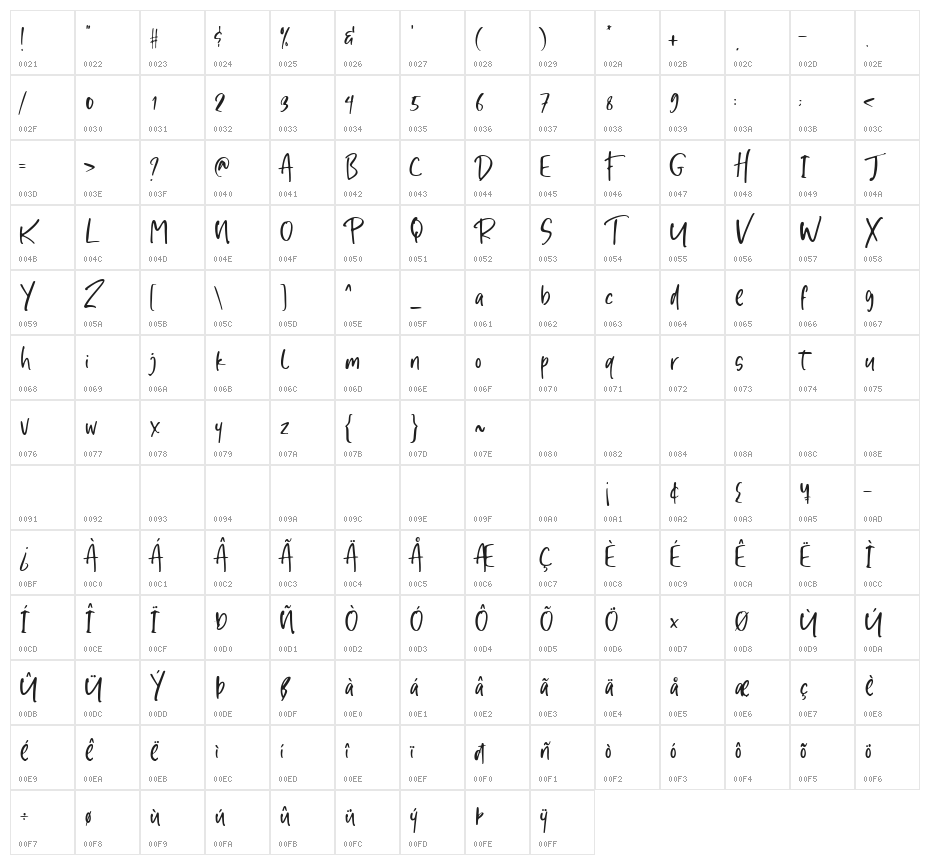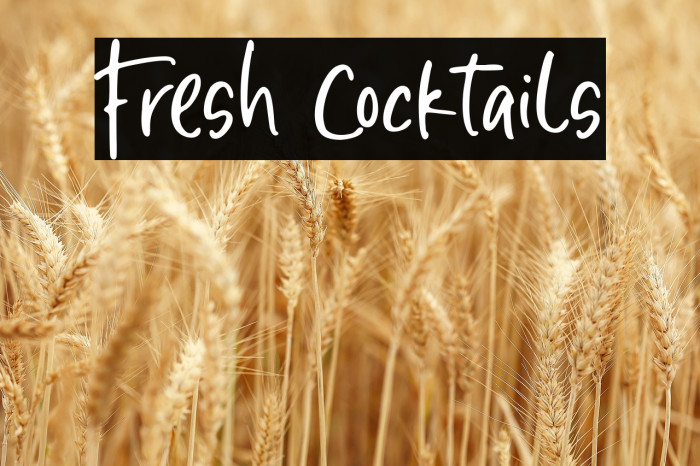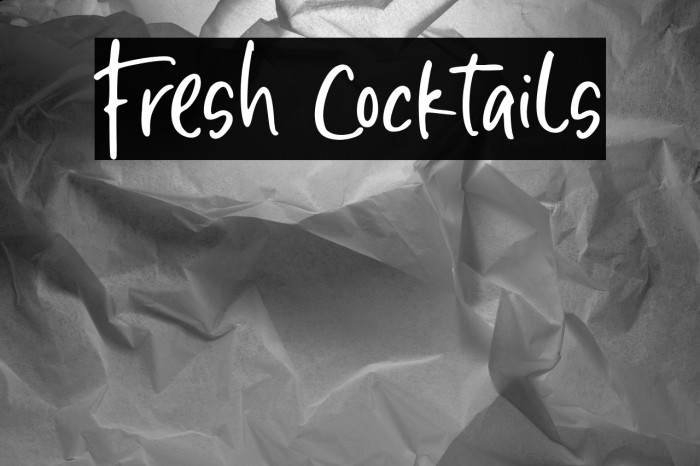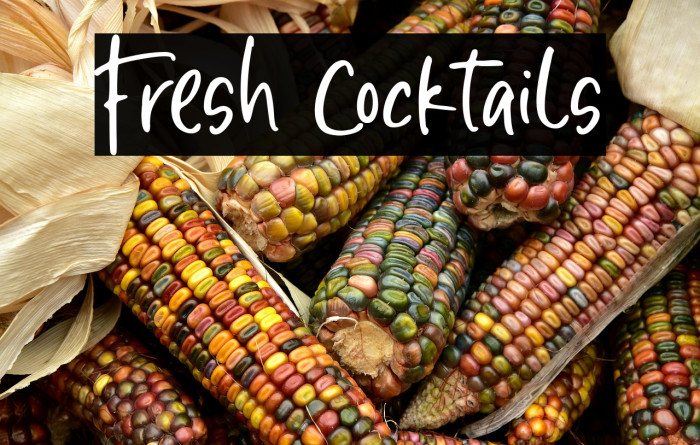
Fresh Cocktails Font
Fresh Cocktails Description
This font exudes a lively and energetic vibe with its handwritten style, featuring playful and slightly irregular strokes that give it a casual and approachable feel. The uppercase letters are bold and dynamic, while the lowercase letters maintain a consistent flow, adding to the font's overall charm. The numerals are clear and legible, matching the playful nature of the alphabet. Special characters are creatively designed, maintaining the font's unique personality. This font is perfect for projects that require a touch of fun and creativity, making it ideal for informal settings.
| Use Case | Headlines, Logos, Social Media |
| Proposed Projects | Ideal for greeting cards, invitations, social media graphics, and branding for creative businesses. |